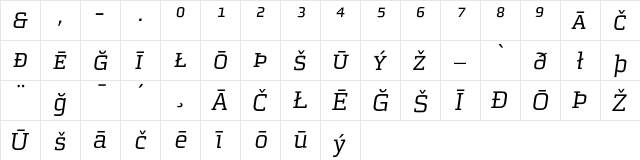
MorganAvec ItalicPi
Design Context for MorganAvec Typeface
MorganAvec offers clean, dependable letterforms without strong stylistic allegiance, making it a practical choice for designers who need flexibility. The dynamic lean of this cut emphasises speed and emphasis in any layout.
Pro Tip: Try MorganAvec for annotation and caption copy alongside an upright companion — the contrast in angle creates a dynamic but ordered typographic system.